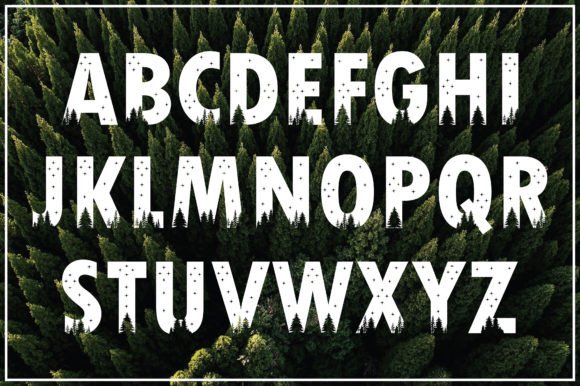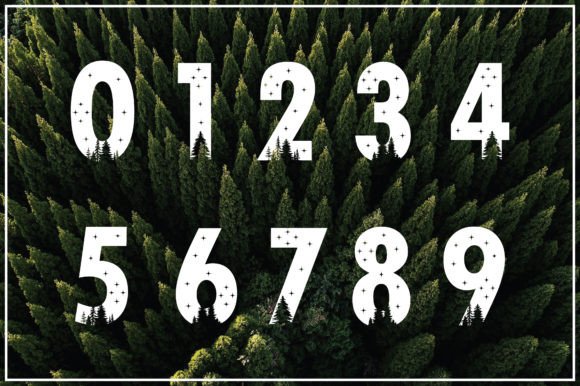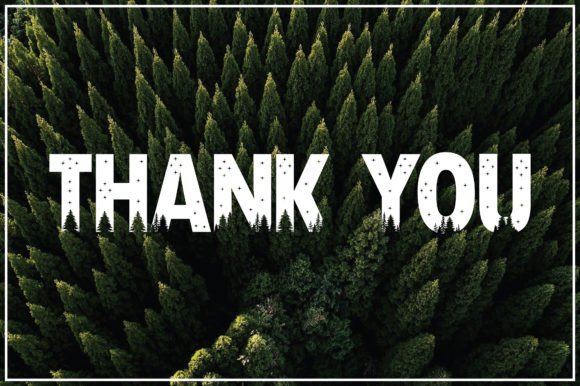
Get Lost in the Adventure of Forest Font
Who hasn’t had one of those magical moments where a font just clicks with a design idea? For me, it was when I stumbled upon the whimsical Forest Font. Its thick, playful letters instantly transported me to a world of imagination and creativity. Whether it’s a children’s game, a science project, or a space exploration theme, Forest Font is the perfect companion to bring your ideas to life.
As a versatile display font, Forest Font offers endless possibilities for designers. Its unique design elements make it an excellent choice for projects that require a touch of adventure and wonder. With Forest Font, you can create visually stunning designs that captivate audiences of all ages. Whether you’re a seasoned designer or just starting out, this font is a valuable addition to your toolkit.
Key Features of Forest Font
- Font Family: Forest Font is a sans-serif font family designed for digital use, available in a range of weights from Light to Bold.
- Unique Characteristics: The font features a distinctive, natural feel, with subtle irregularities and variations in letterforms that give it a unique, human touch.
Forest Font Review
Overall, I’m impressed with the Forest Font. It’s a beautifully designed font that’s perfect for nature-inspired projects. ✨ Here are some of its strengths:
- Unique and creative design: The Forest Font’s intricate details and organic feel make it stand out from other fonts.
- Versatile: It works well in both digital and print media, from website headers to book titles.
- High-quality: The font is well-crafted and looks great at various font sizes.
- Limited character set: The font doesn’t include a wide range of special characters, which might be a problem for certain projects.
- Not suitable for body text: The font’s style is too ornate for large blocks of text, making it better suited for headings and titles.
- May not be readable on all devices: Some users might have difficulty reading the font due to its complex design.
Overall, I’d recommend the Forest Font for projects where a unique, nature-inspired design is required. While it has some limitations, it’s a great choice for headings, titles, and other design elements where a bold, creative look is needed.
Getting the Most Out of Forest Font
For best results, use Forest Font in conjunction with earthy color schemes and natural textures.
Experiment with different font sizes and styles to create visual interest.
Forest Font is ideal for:
Outdoor and nature-inspired designs.
Environmental and conservation-related projects.
Wellness and self-care branding.